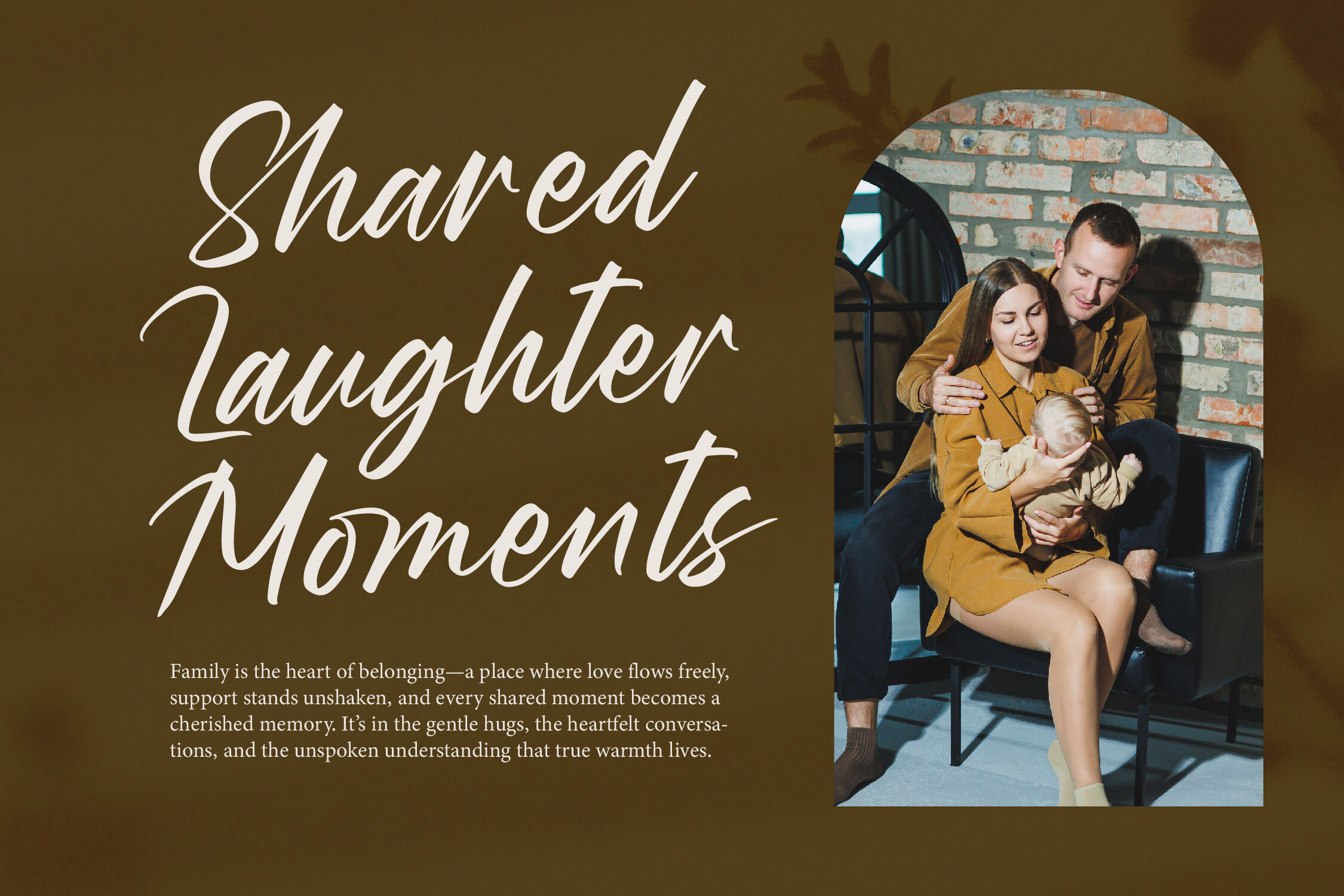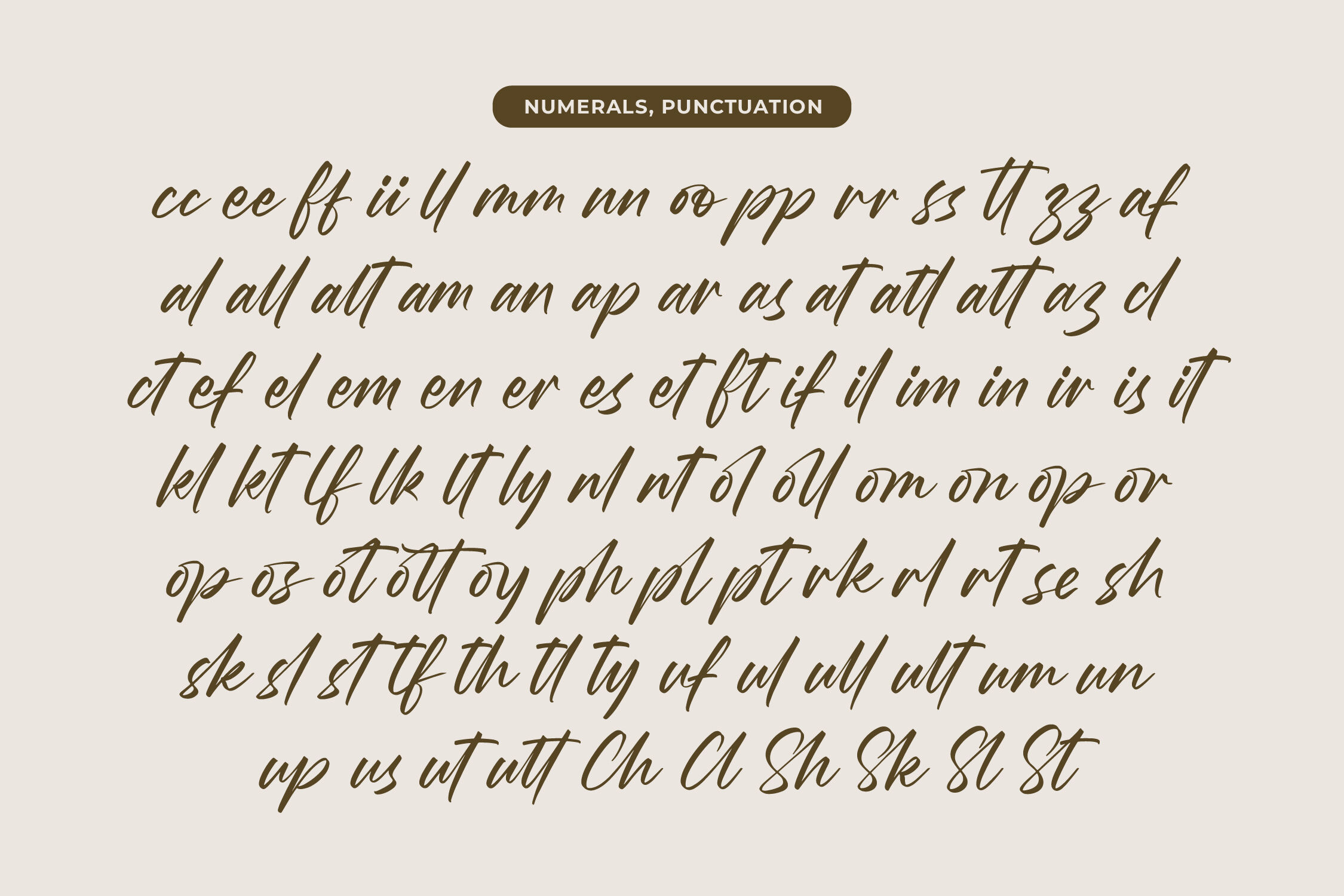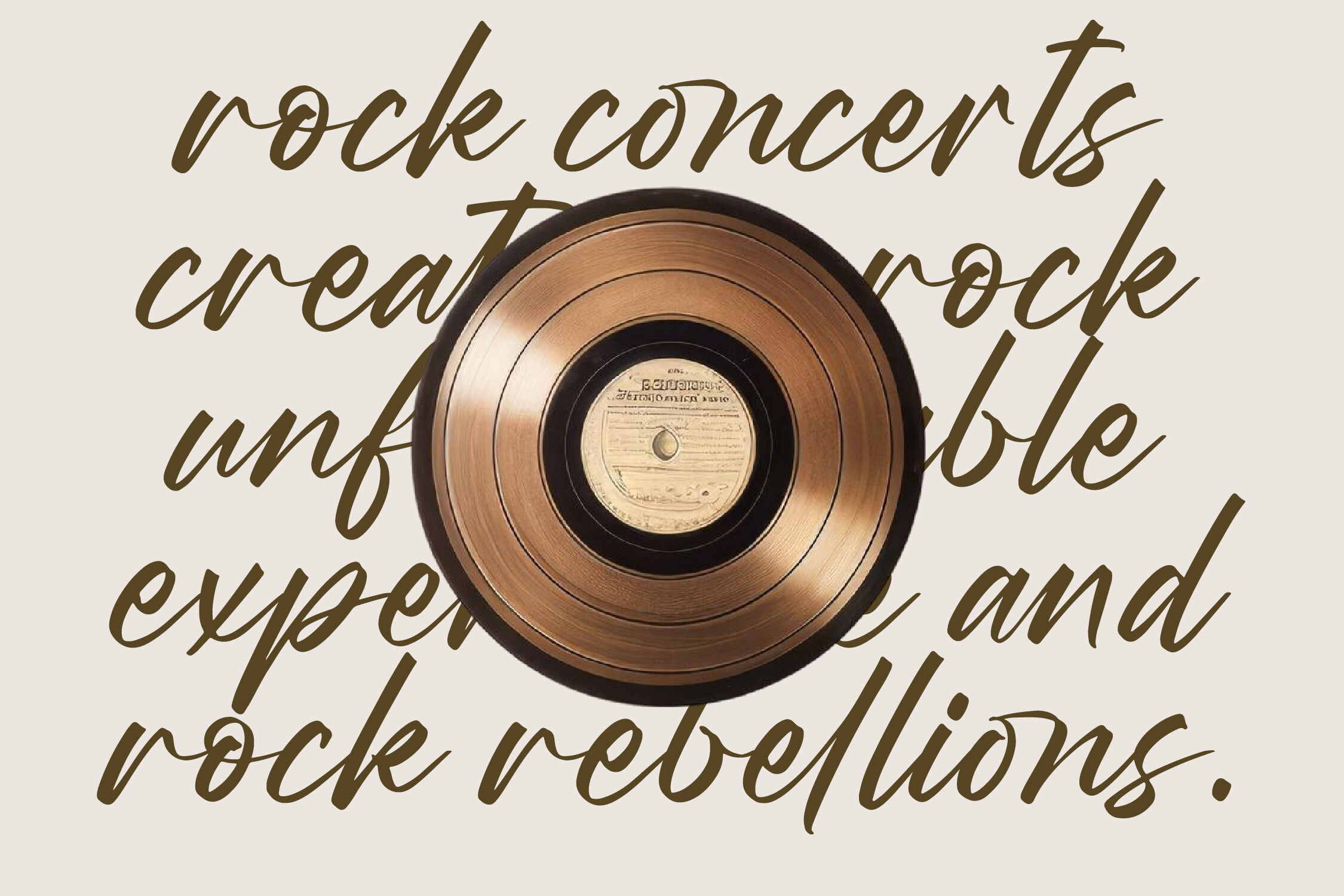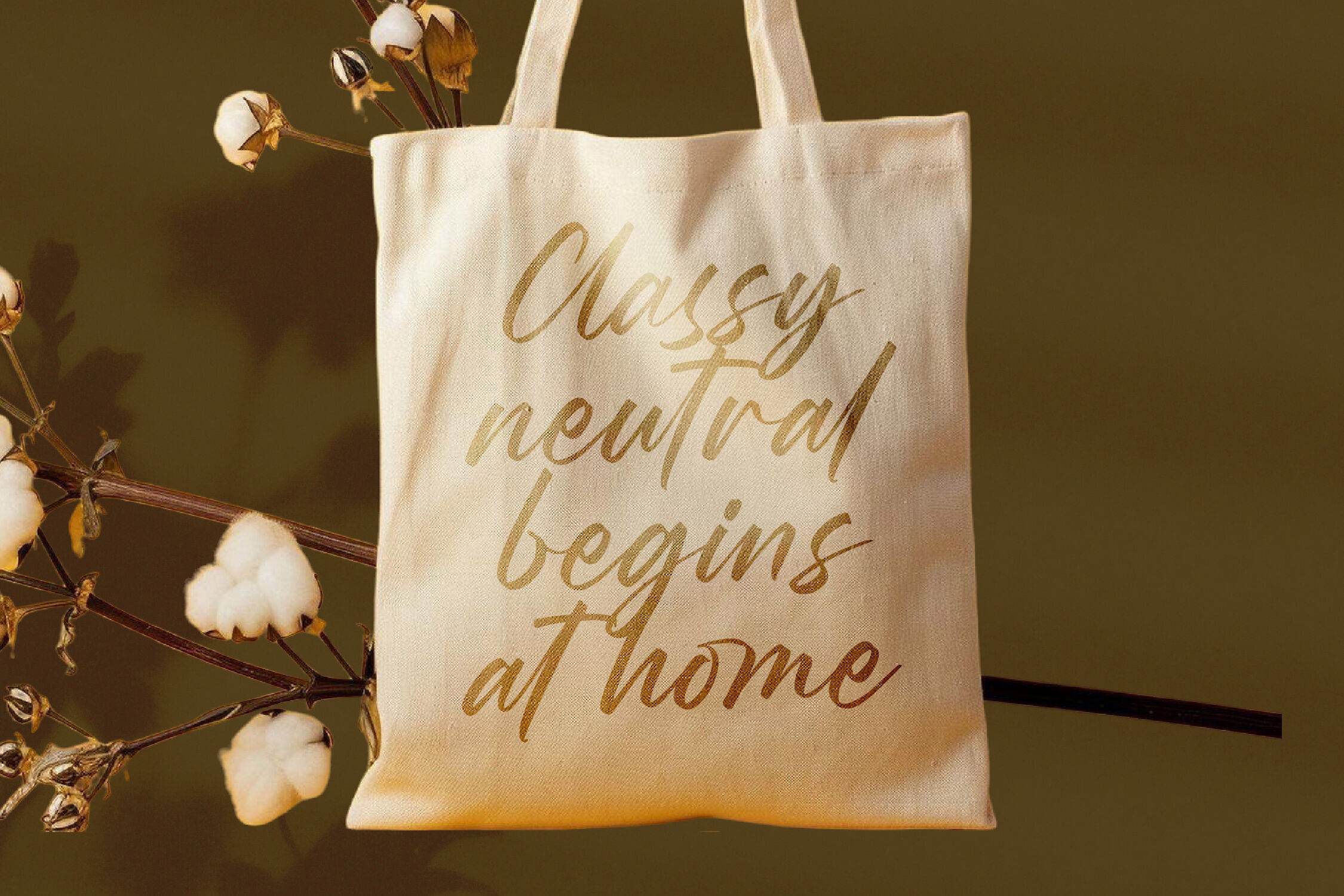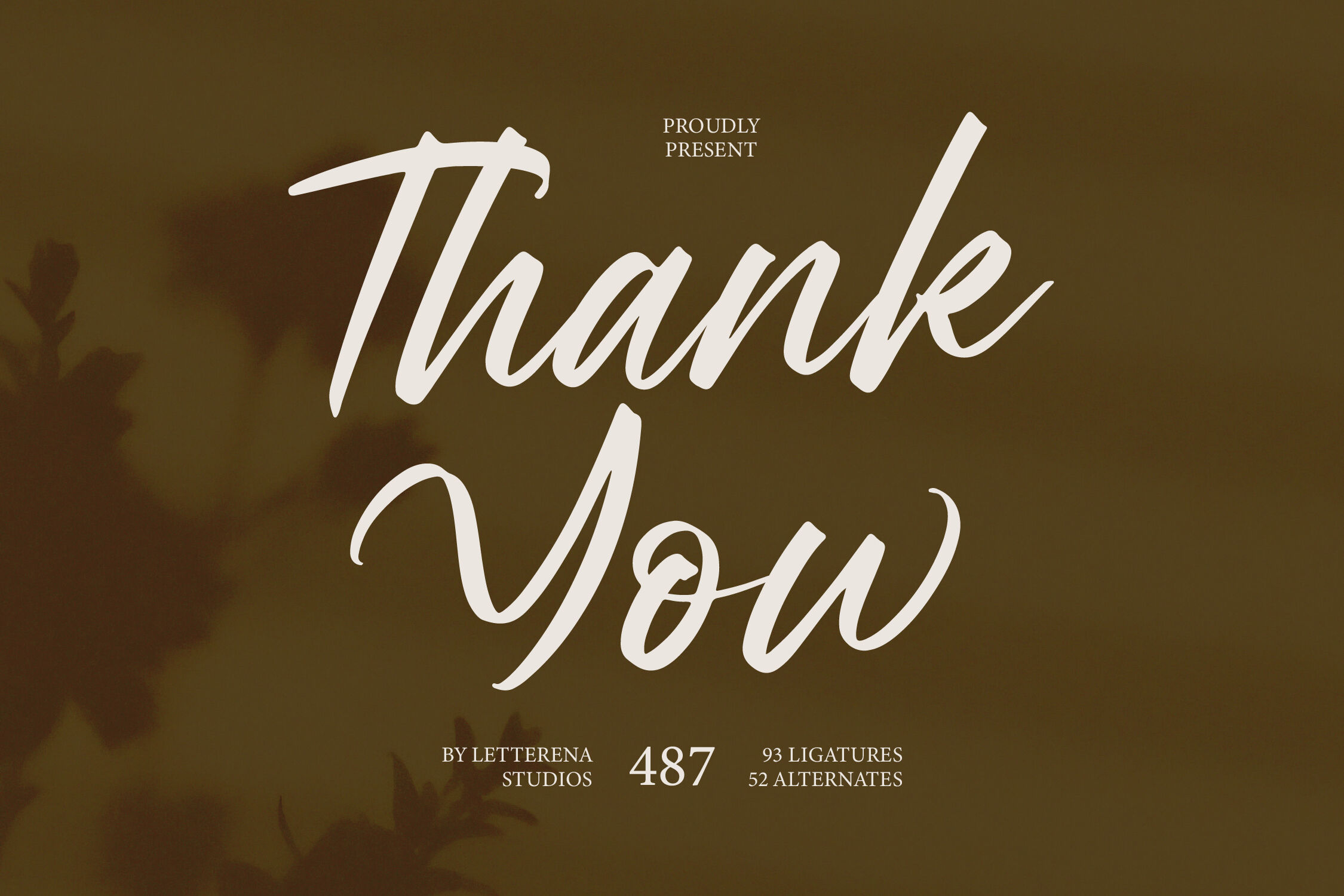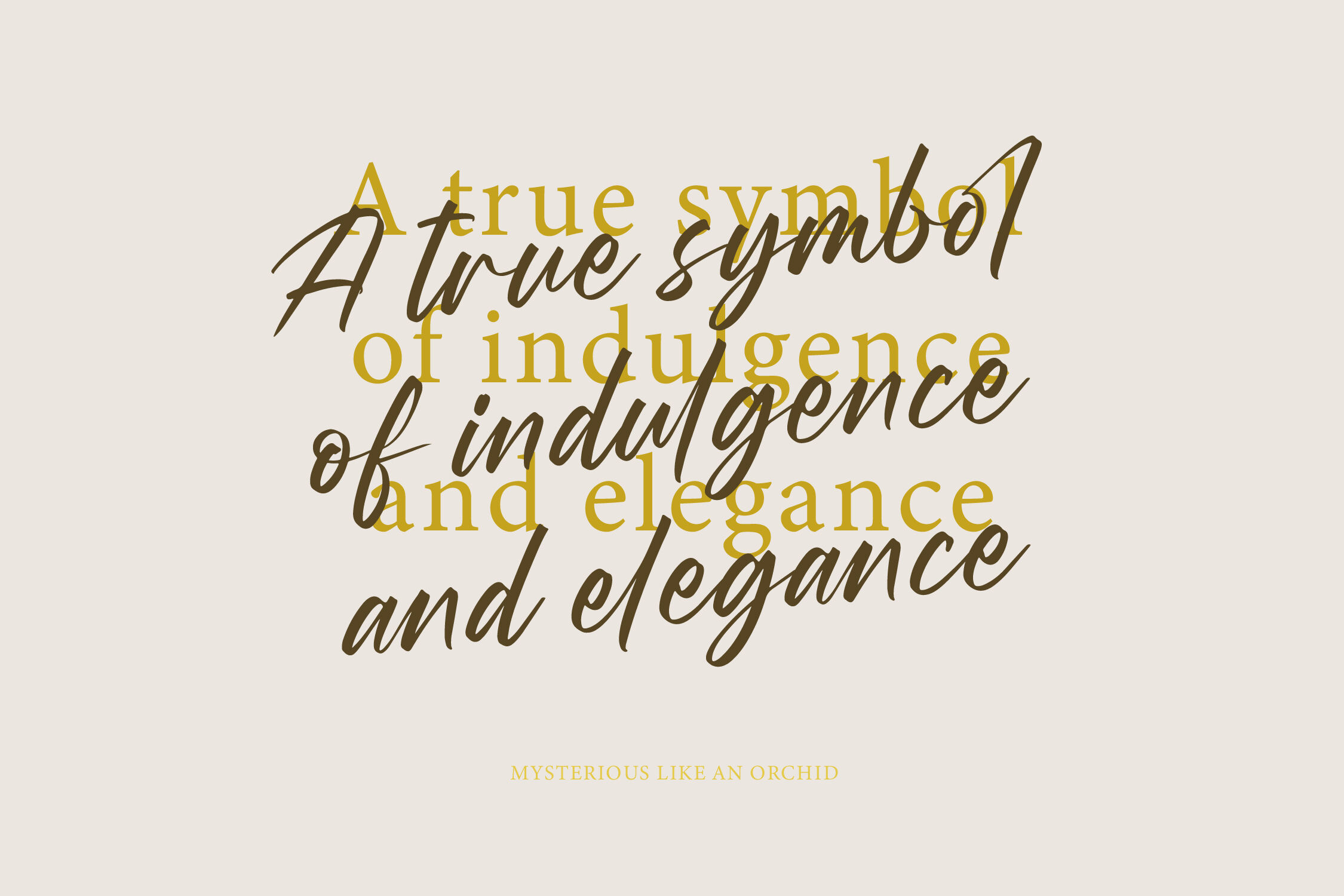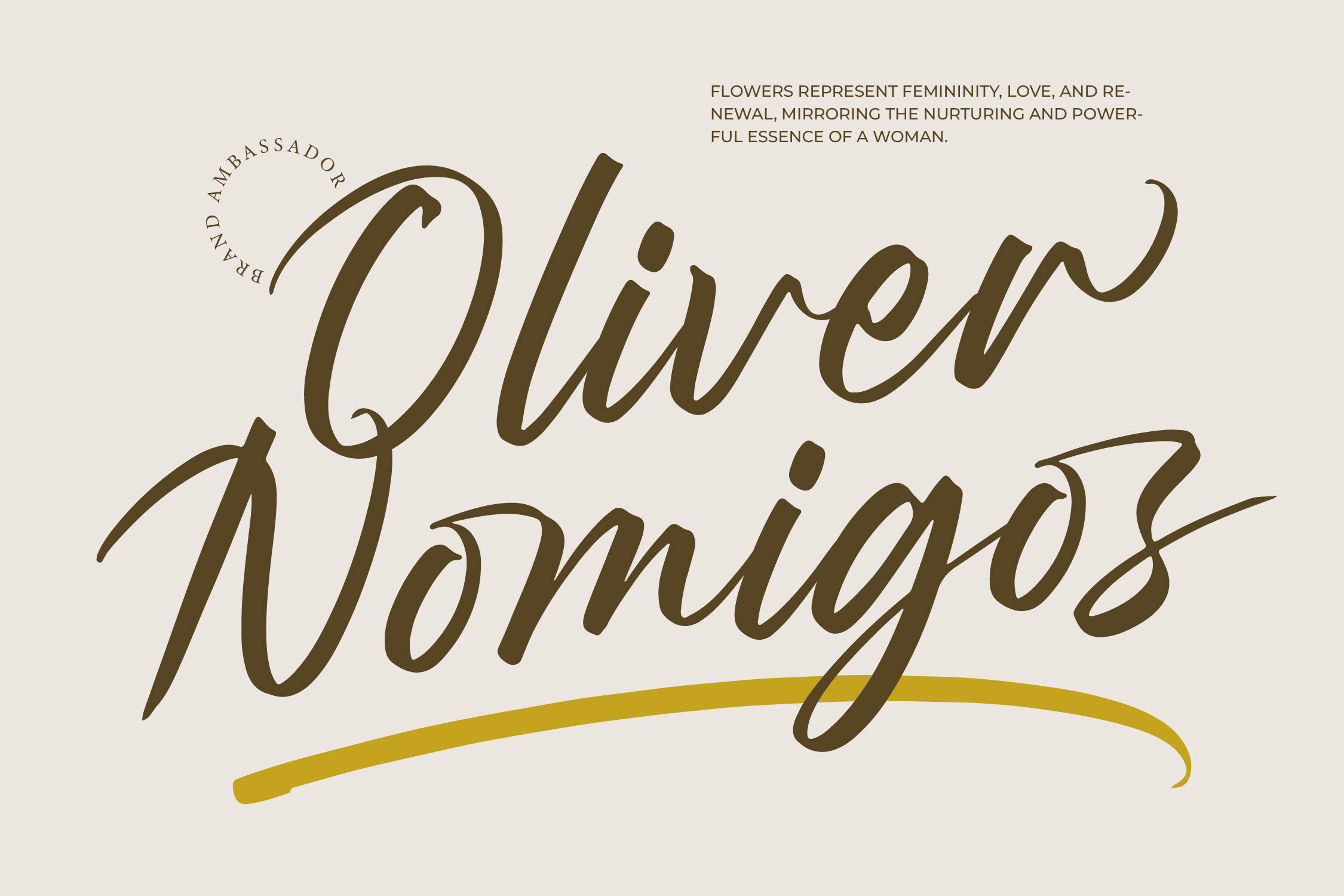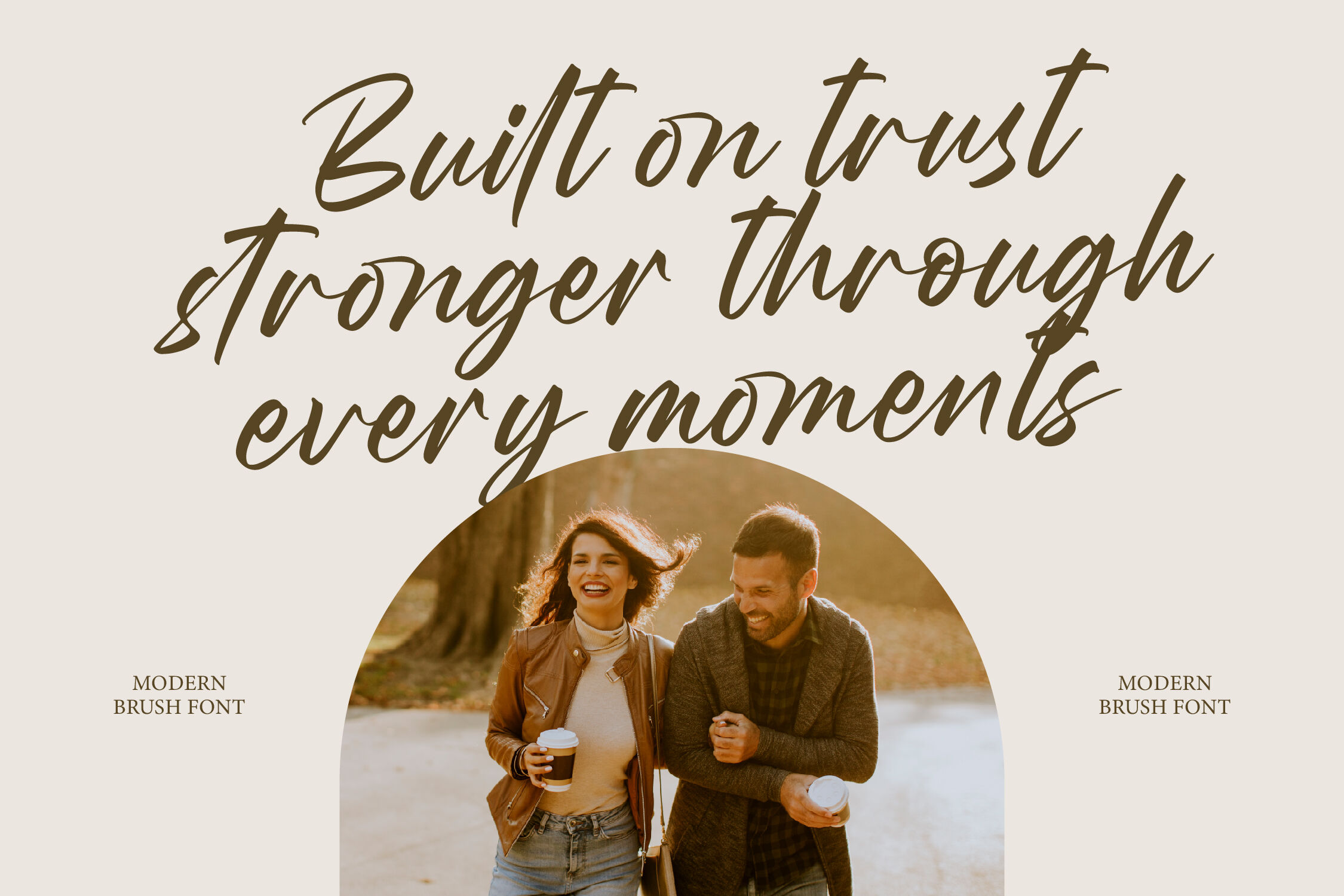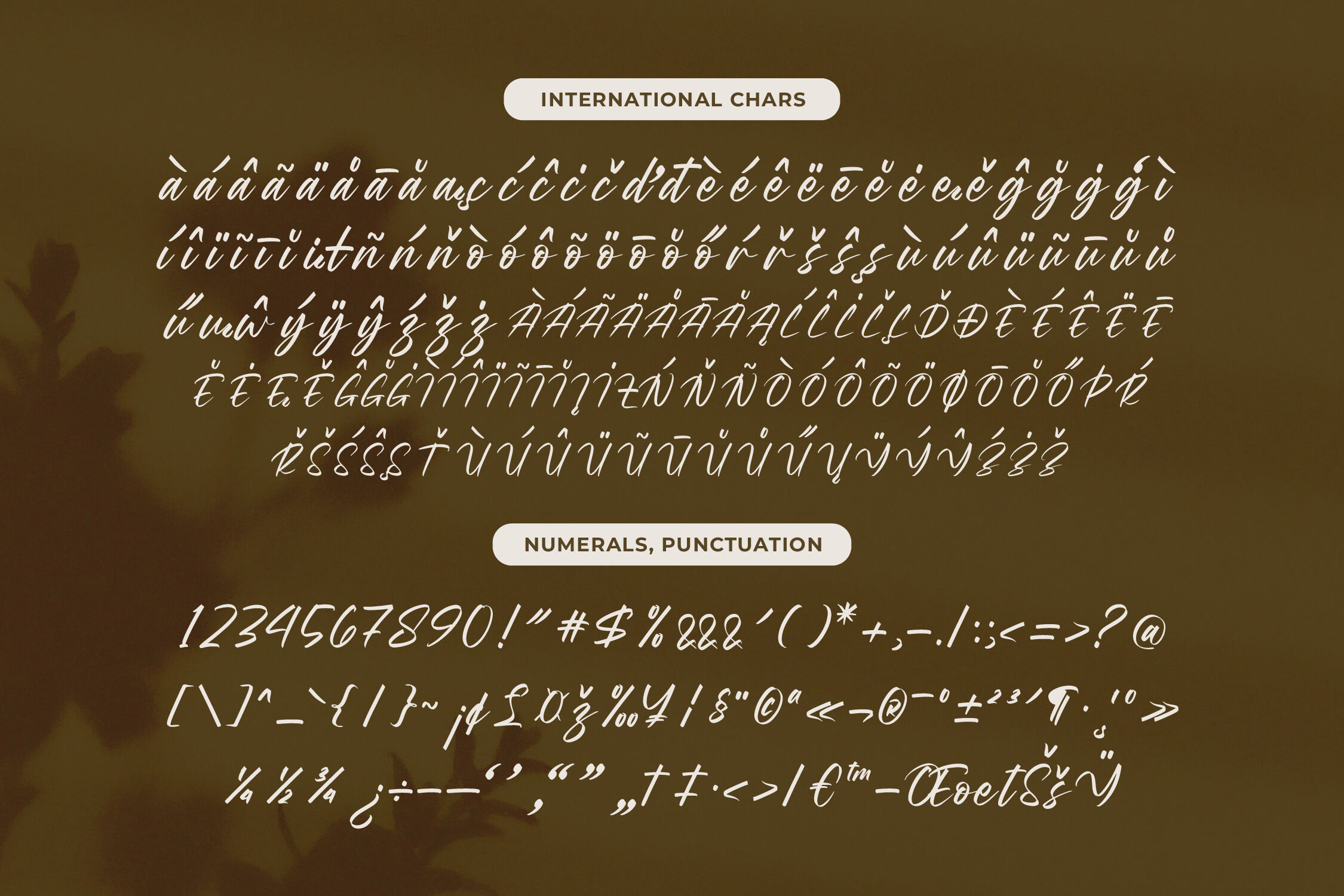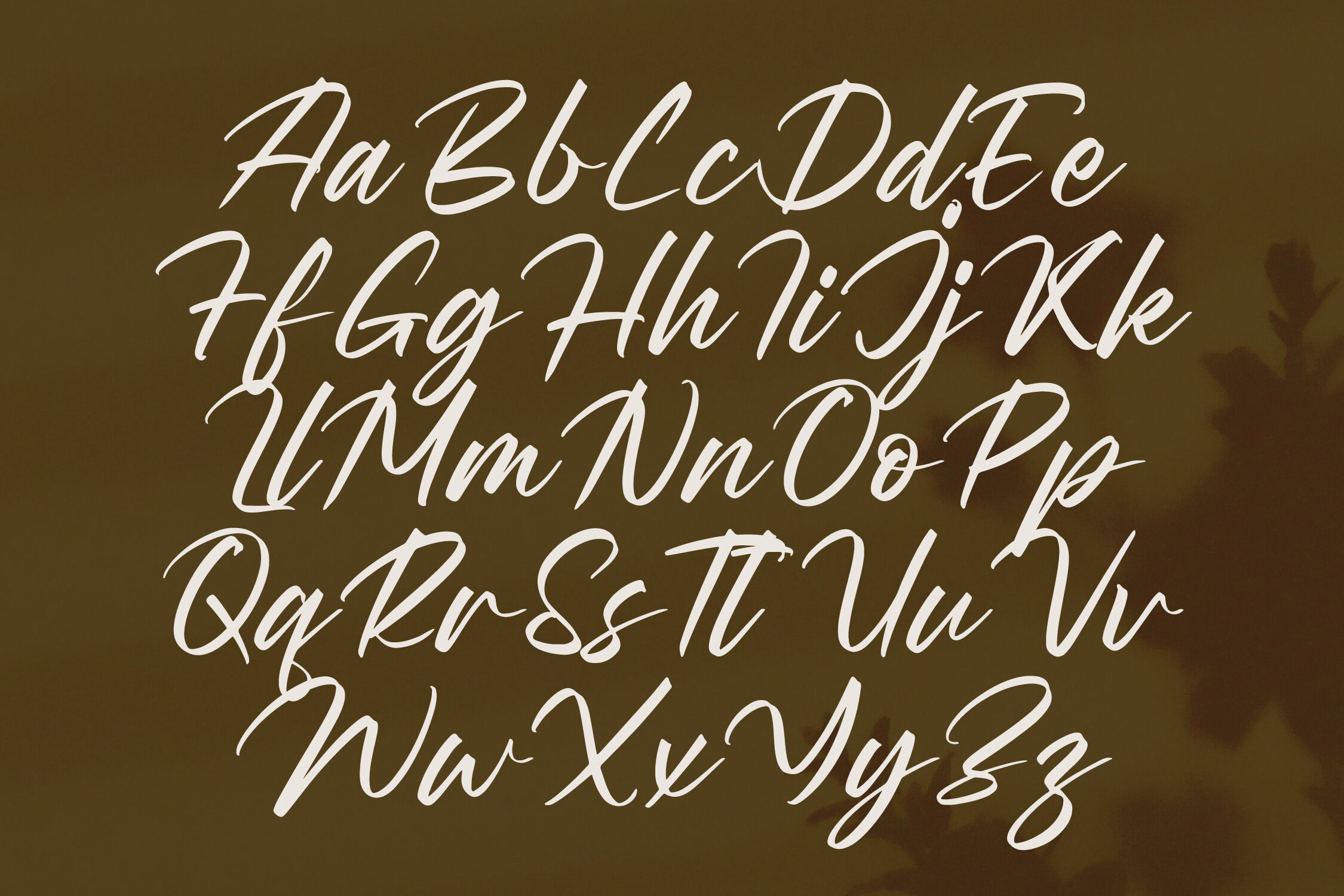
Wystine Esphelta - Modern Brush Font
Wystine Esphelta - Modern Brush Font , from Letterena, is a Luxury Script font, suitable for any projects such as: logos, branding projects, homeware designs, product packaging, mugs, quotes, posters, shopping bags, t-shirts, book covers, name card, invitation cards, greeting cards, label, photography, watermark, special events, and all your other luxury and beautiful projects that need a Luxury Script taste.
Wystine Esphelta Italic
Wystine Esphelta
Wystine Esphelta - Modern Brush Font